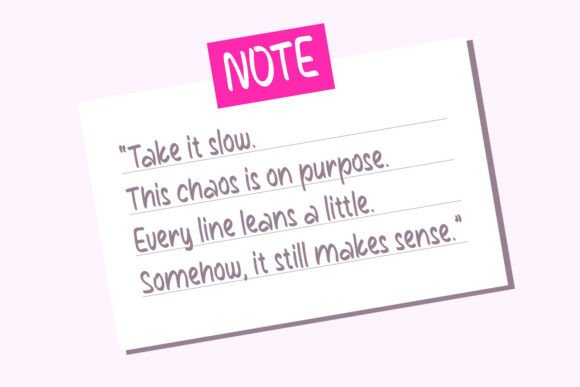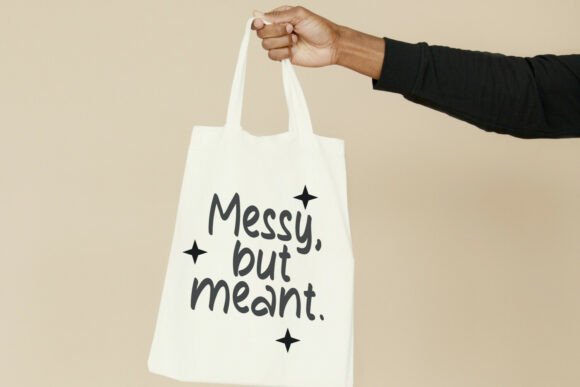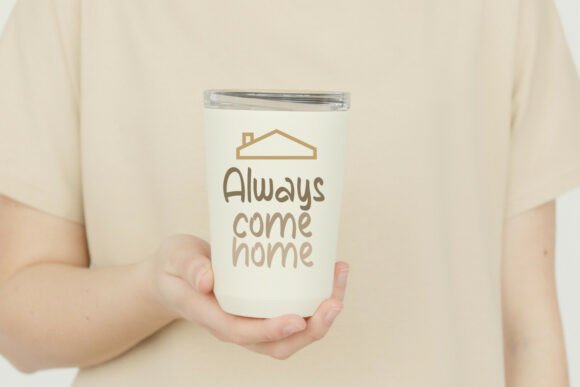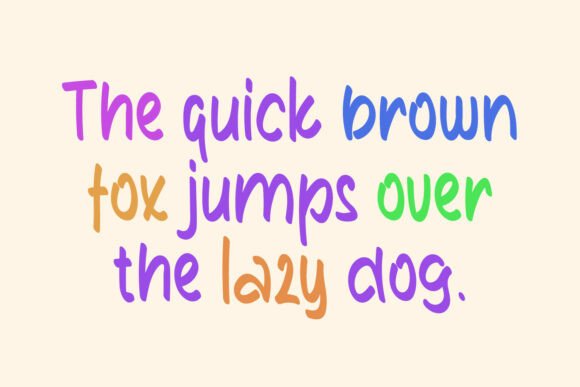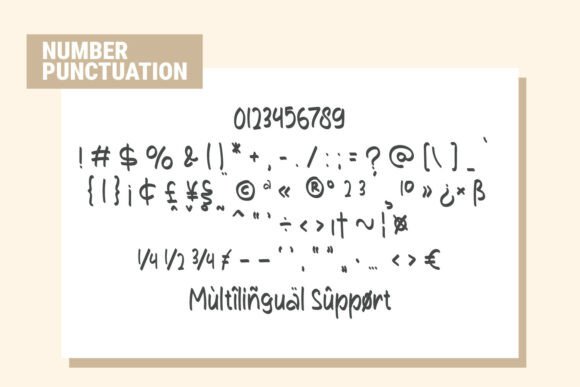
Introducing False Memory Font: The Charming Handwritten Display Font
Are you tired of using the same old fonts for your designs? Do you want to add a touch of magic and whimsy to your wedding invitations, notes, and cards? Look no further than the False Memory Font, a charming and endearing handwritten display font that is sure to capture hearts.
A Delightful and Playful Character
The False Memory Font is beautifully designed to bring a sense of fun and cheerfulness to any design venture. Its delightful and playful character makes it perfect for adding a personal touch to your creations. Whether you’re a designer, crafter, or simply someone who loves to create, this font is sure to inspire you to produce something truly special.
Perfect for Wedding Invitations and More
The False Memory Font is particularly well-suited for wedding invitations, heartfelt notes, and thoughtful cards. Its charming and endearing nature makes it perfect for expressing your feelings and emotions in a unique and creative way. Imagine being able to add a touch of magic to your wedding invitations, making them truly unforgettable for your guests.
Adding a Magical Touch to Your Designs
With the False Memory Font, you can add a magical touch to any design venture. Whether you’re creating a beautiful wedding invitation, a heartfelt note, or a thoughtful card, this font is sure to make your design stand out. Its playful and cheerful character makes it perfect for:
- Wedding invitations and announcements
- Heartfelt notes and love letters
- Thoughtful cards and greetings
- DIY projects and crafts
- Signs and displays
Why Choose the False Memory Font?
So why choose the False Memory Font over other fonts? Here are just a few reasons why this font stands out:
- Unique and Creative: The False Memory Font is a truly unique and creative font that will set your designs apart from the rest.
- Playful and Cheerful: This font has a playful and cheerful character that is sure to add a touch of fun and whimsy to your designs.
- Perfect for Personal Projects: The False Memory Font is perfect for personal projects, such as wedding invitations, notes, and cards.
- Easily Readable: This font is easily readable, making it perfect for both digital and print designs.
Tips for Using the False Memory Font
Here are a few tips for using the False Memory Font in your designs:
- Use it for Headings: The False Memory Font is perfect for headings and titles, adding a touch of magic and whimsy to your designs.
- Pair it with Other Fonts: Try pairing the False Memory Font with other fonts to create a unique and creative look.
- Have Fun: Most importantly, have fun and be creative with the False Memory Font!
In conclusion, the False Memory Font is a charming and endearing handwritten display font that is sure to capture hearts. Its delightful and playful character makes it perfect for adding a touch of magic and whimsy to any design venture. Whether you’re a designer, crafter, or simply someone who loves to create, this font is sure to inspire you to produce something truly special. So why wait? Download the False Memory Font today and start creating your own magical designs!